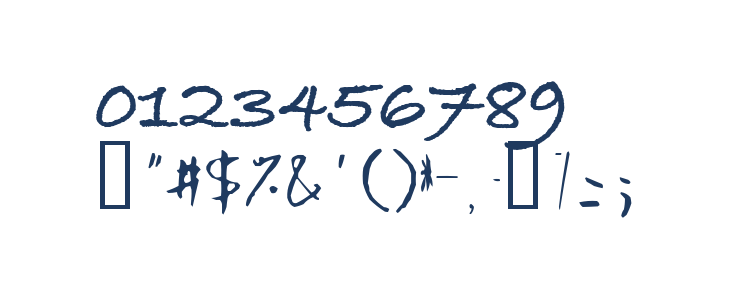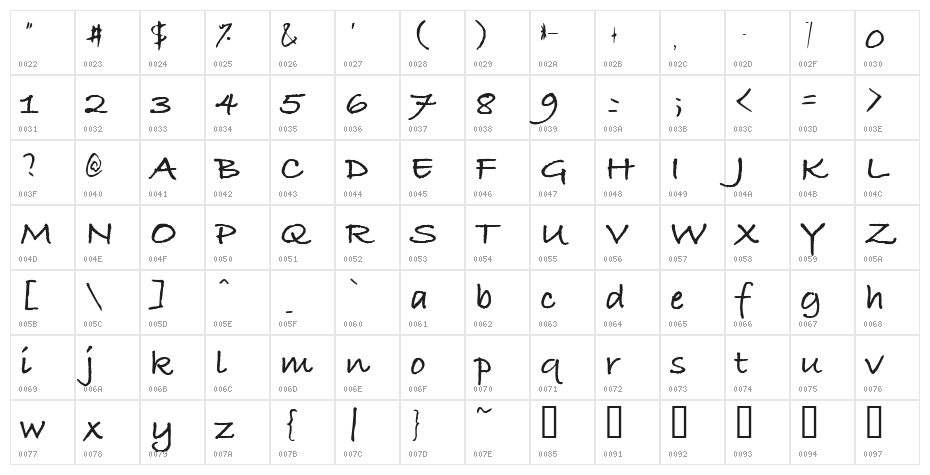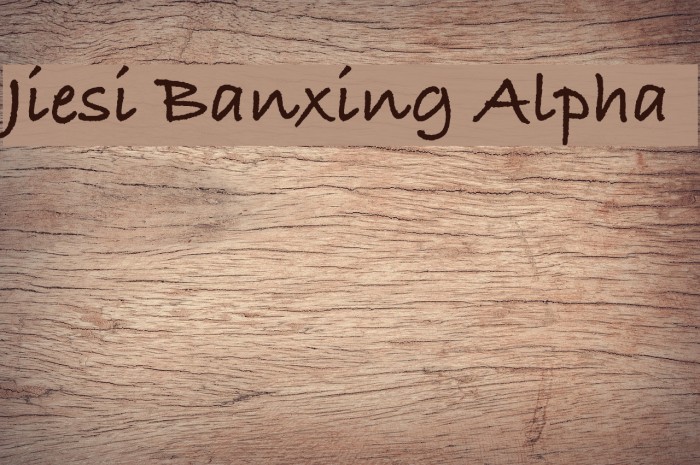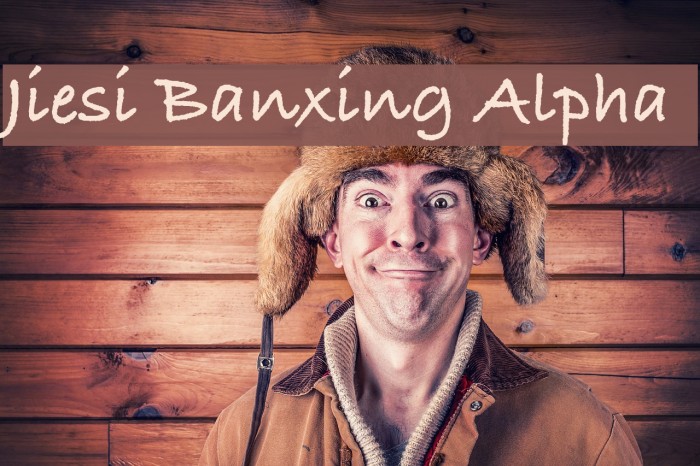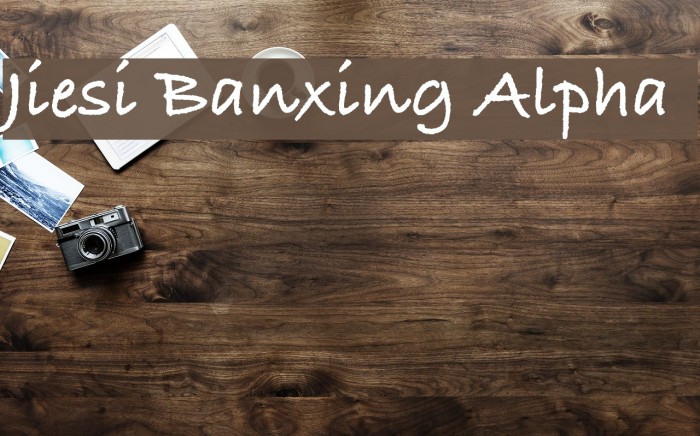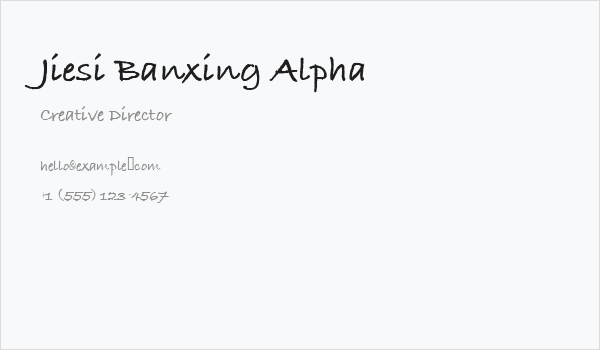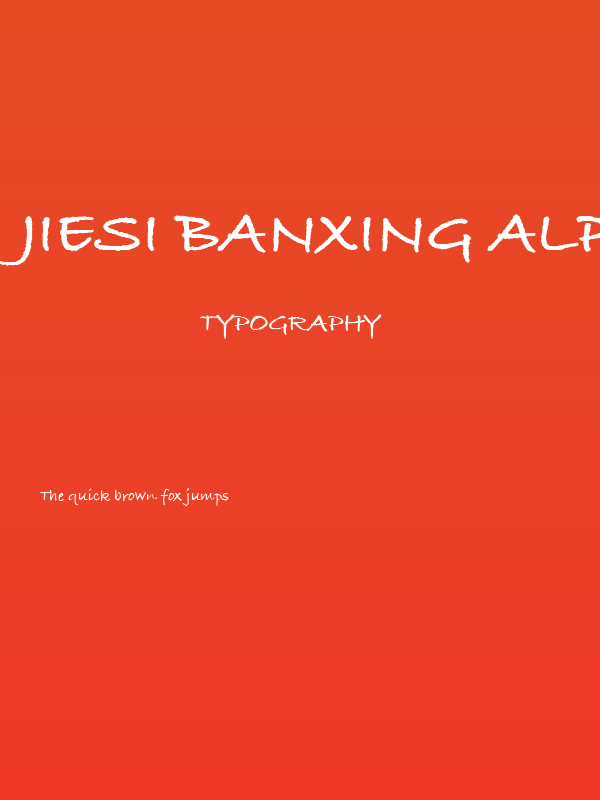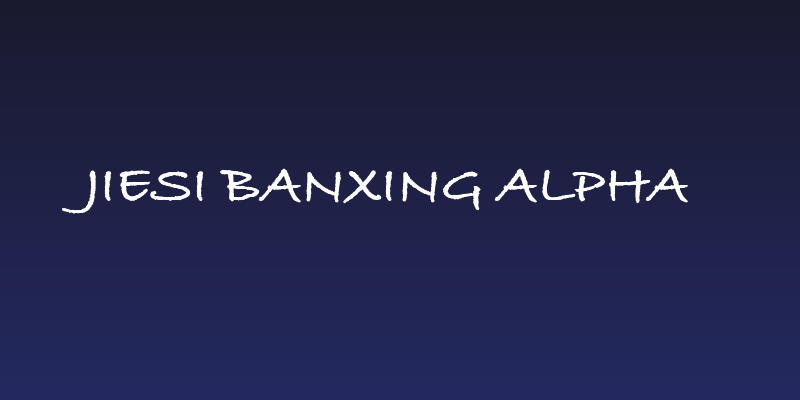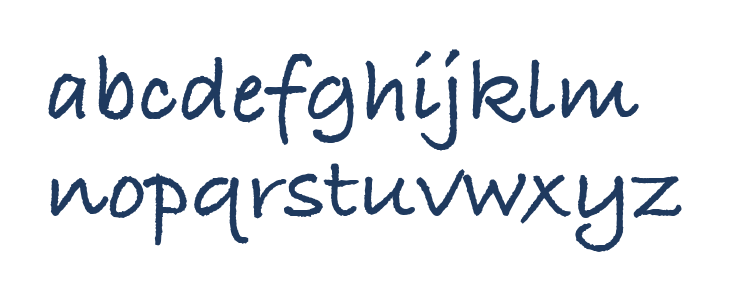
Jiesi Banxing Alpha Font
Jiesi Banxing Alpha Description
This font exhibits a handwritten style with a casual and organic feel. The characters are slightly irregular, mimicking the natural flow of handwriting. The uppercase letters are bold and confident, while the lowercase letters maintain a consistent flow. Numbers and special characters are designed to match the overall aesthetic, with a playful yet legible appearance. The strokes vary in thickness, adding a dynamic quality to the text. This font is versatile, suitable for projects that require a personal touch or an informal tone.
Overall StyleCasual, Organic
Use CaseLogos, Invitations, Personal Branding
Proposed ProjectsIdeal for greeting cards, personal branding, invitations, and creative projects that benefit from a personal touch.